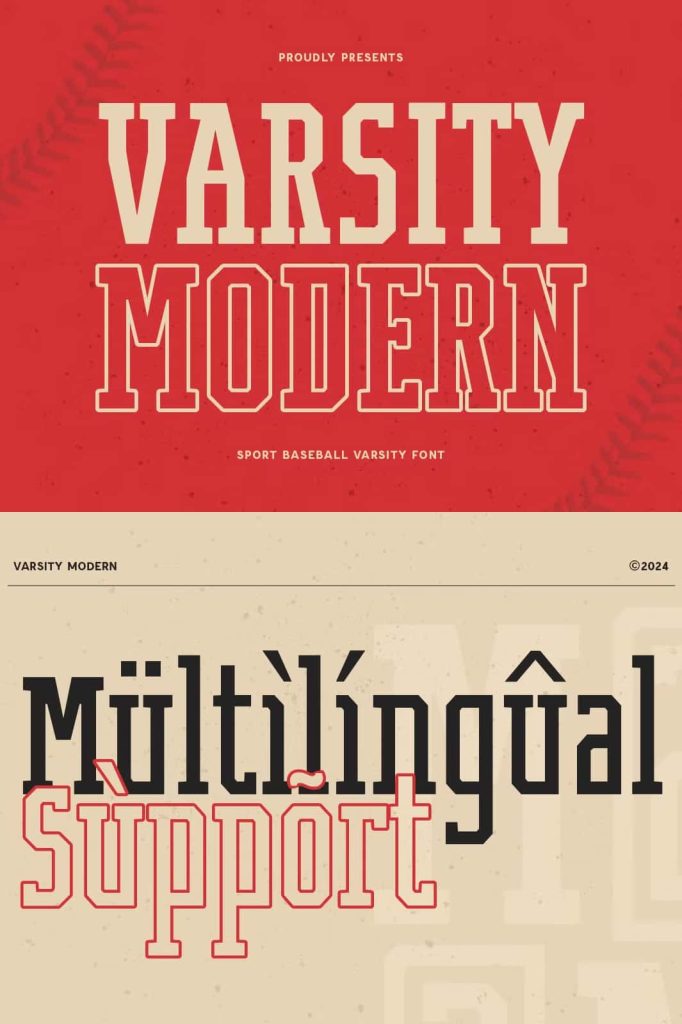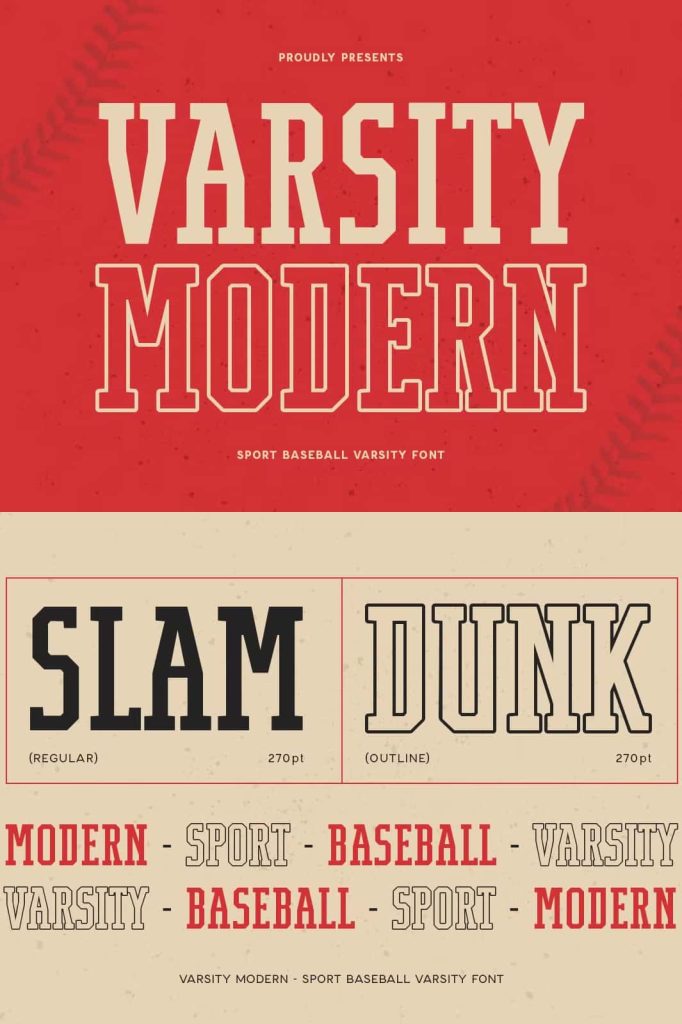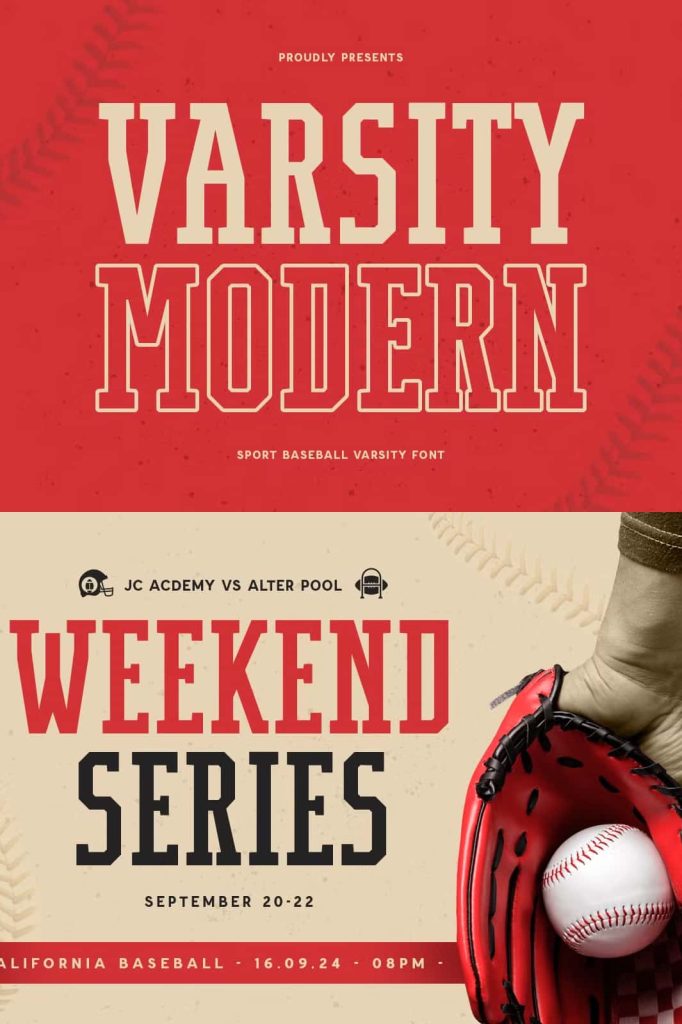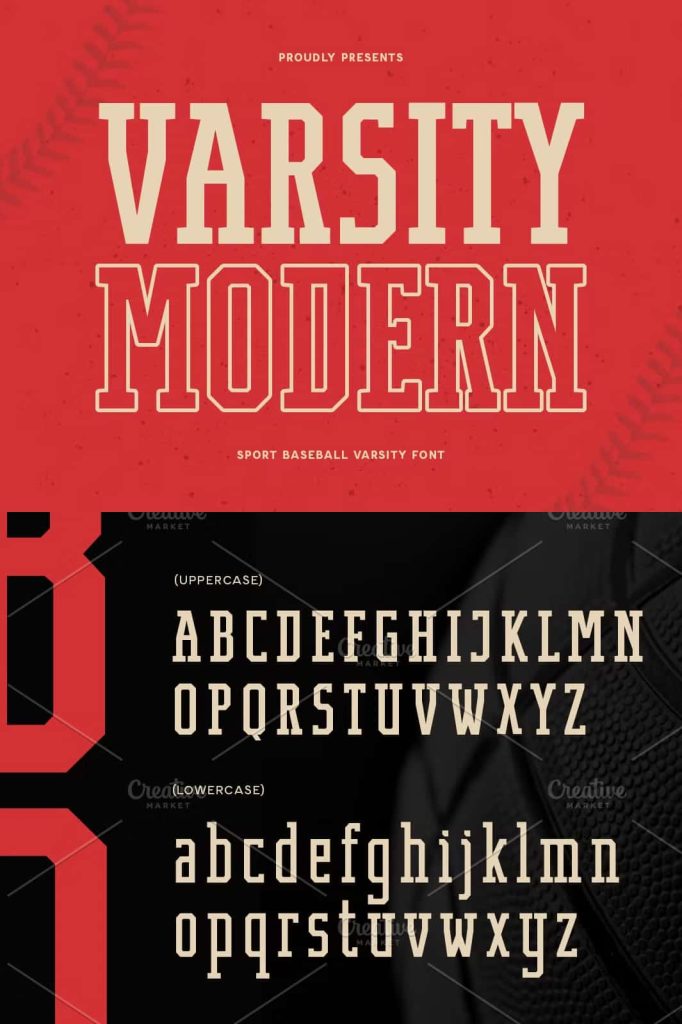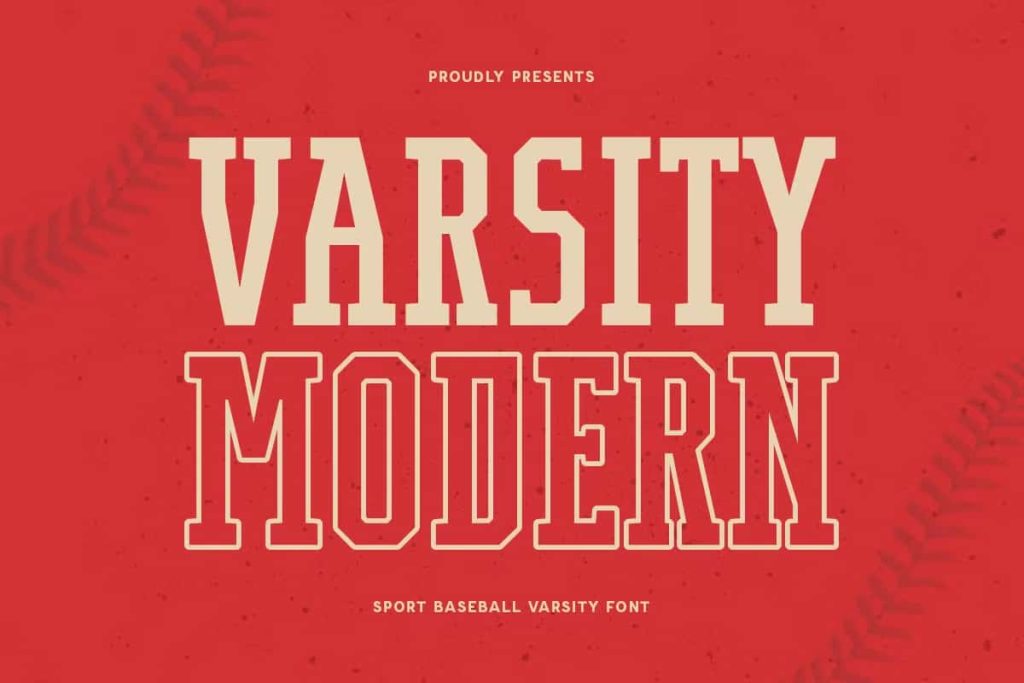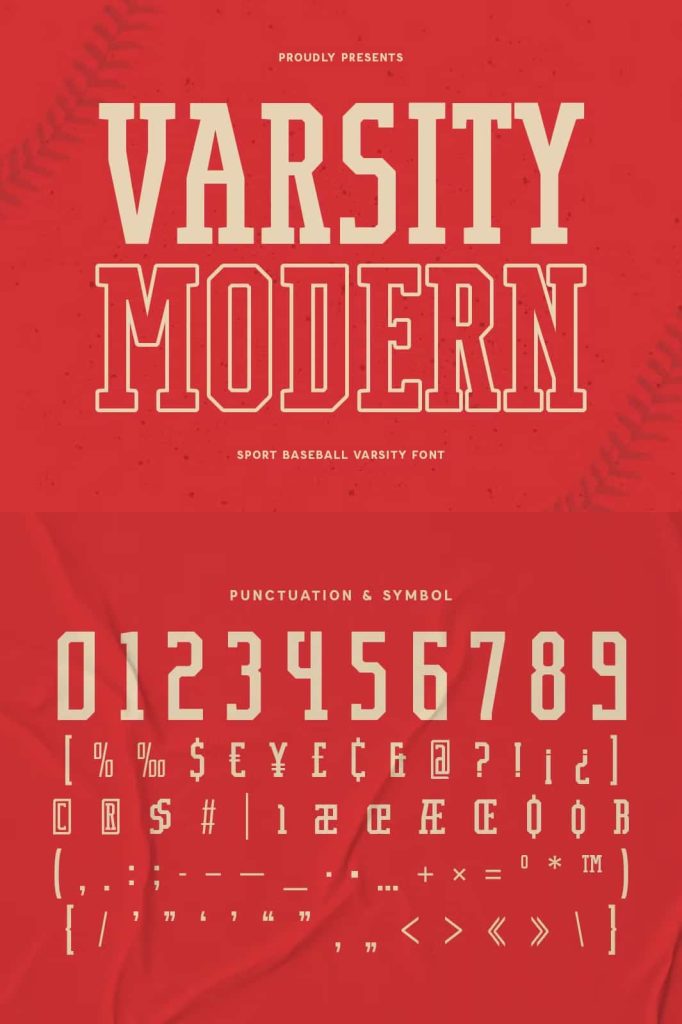
Introducing Varsity Modern, a font that brings the spirit of the game to your designs. Inspired by the bold and dynamic look of varsity sports, Varsity Modern captures the excitement and energy of baseball and other athletic events.